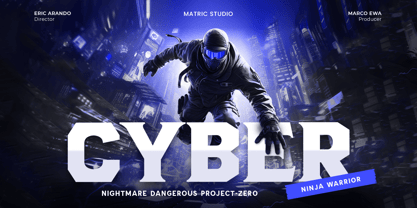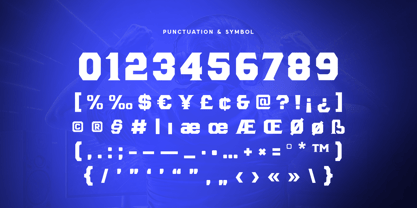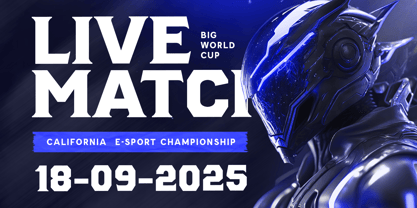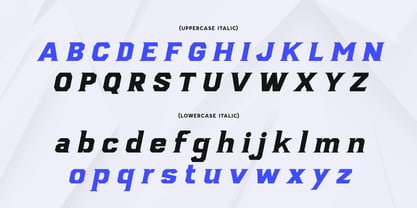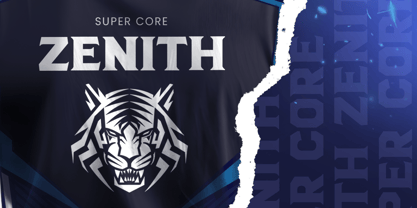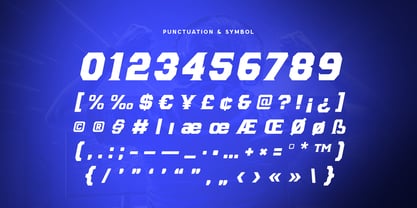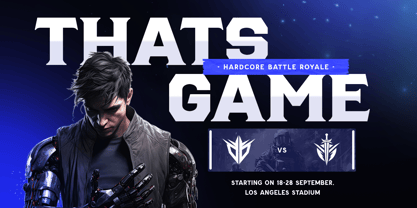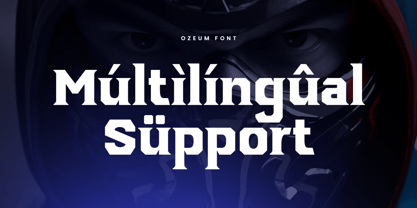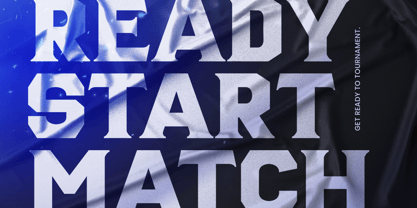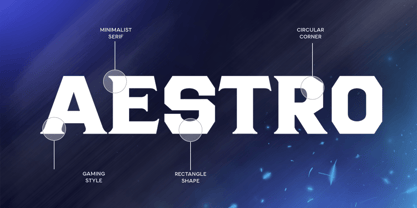
Ozeum
by Sensatype Studio
The Ozeum Font Family was designed by Zamroni Hamzah and published by Sensatype Studio. Ozeum contains 2 styles and family package options. More about this family
Ozeum - Esport Font
Ozeum is a cutting-edge font crafted specifically for the gaming and esports world. Designed with bold, dynamic elements, it captures the high-energy essence of competitive gaming and helps your brand stand out in a crowded market. Whether for team logos, game titles, or streaming graphics, Ozeum delivers a powerful visual impact.
Inspired by the fast-paced nature of esports, Ozeum combines modern design with unique character traits to create a font that's both eye-catching and functional. Its distinctive style ensures that your brand will make a memorable impression, while its versatile features offer endless possibilities for creative applications.
Ideal for any esports or gaming project, Ozeum supports multiple languages and includes all the essential characters for a complete design solution. With its opentype features and comprehensive character set, it provides the flexibility and style needed to elevate your gaming brand to new heights.
Ozeum Esport Font Features:
• Unique Characters Ready
• Punctuation, Number, and Symbol
• Uppercase and Lowercase
• Multilingual Support
• Opentype Features
Designers: Zamroni Hamzah
Foundry: Sensatype Studio